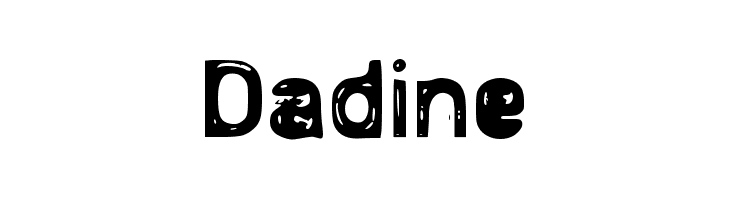
A bold, distressed font with a hand-painted, textured appearance.
A bold, textured font with a frosty, distressed appearance.
A decorative font with an abstract, splattered ink style.
An irregular, bold font with an organic, ink-splatter appearance.
A playful, hand-drawn font with an organic, whimsical style.
A bold, playful font with an organic, hand-drawn texture.
A playful, bubbly font with thick, rounded characters and a whimsical style.
A bold, playful font with a hand-drawn, artistic style.